As far as typefaces go, Hate and Papelli couldn’t be more different – at least at first glance. Where Hate’s design is topical, Papelli is almost timeless. Hate is a display typeface designed especially for Halloween, although it could be used year-round on horror movie posters. Papelli, on the other hand, has been created for use in a wide variety of everyday advertising, corporate, and editorial design applications. Papelli is an informal sans, with a feminine touch. In terms of its appearance, the typeface is almost an upright italic. While Hate isn’t an everyday design, the font has been developed with the same degree of consideration we’d put into a superfamily. Even fonts that won’t be used in complex documents deserve to be engineered at a high standard. Hate is from Gaetan Baehr and Jeremie Hornus. Papelli was designed by Alisa Nowak and Julie Soudanne. 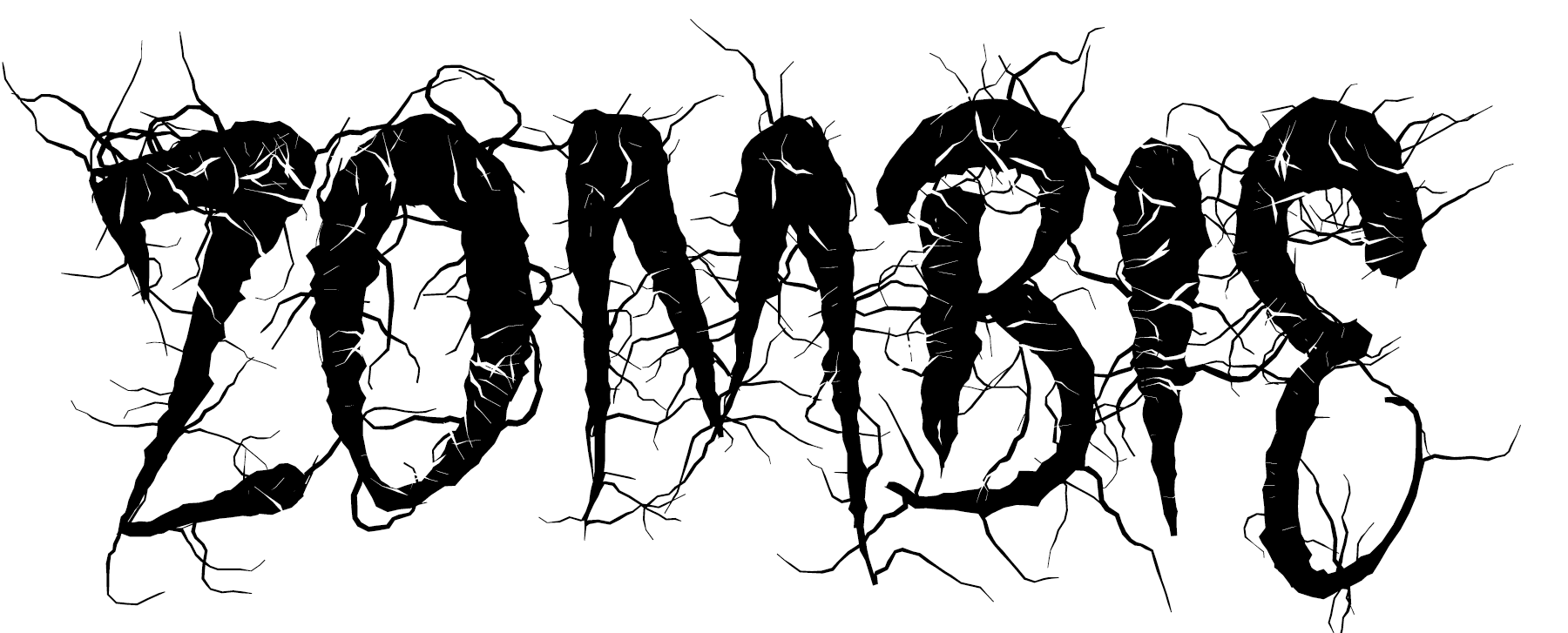
Although Hate is a single-weight design, it is far from just a simple font. The character set contains 510 glyphs, and each letter has three different variants available. Combined with the font’s OpenType features, this means that if you type the same letter three times (e.g., ‘RRR’), you’ll see three different instances. There’s more to Hate than the spooky-looking hairs or roots sprouting out from each glyph; looking at Hate’s design, the typographic sophistication quickly becomes apparent. The letters are top-heavy, and this plays out both in terms of weight and width. A strong amount of stroke contrast is in play in the characters, too. Hate is somewhat condensed, with narrow counters. Its drawing style is rather rough, with sharp, thin stroke endings. There’s some experimentation with the font’s internal heights; letterforms don’t share exact baselines, x-heights, cap-heights, or ascender and descender settings. Character proportion is a bit caricatural, too. However, there’s more internal order to the design than you’ll see at first glance. Most capital letters and numerals rise to a common height, for example.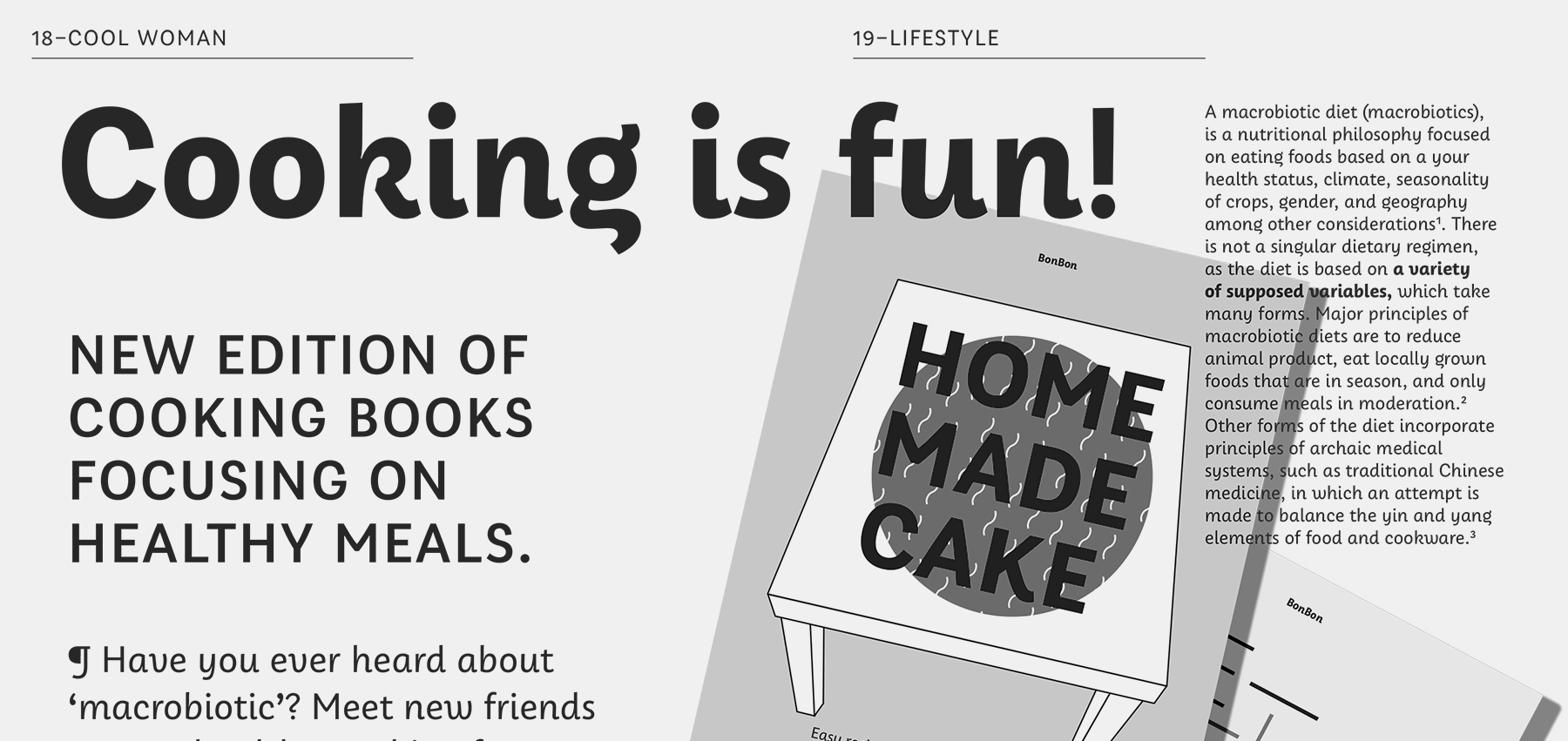
Papelli is a friendly family with six styles that range from Extralight to Extrabold. Many of Papelli’s uppercase letters have playful features. For instance, the bottom diagonals on ‘K’ and ‘R’ have cursive out-strokes, and the tail on the ‘Q’ is very energetic. Papelli’s other diagonals are curved, rather than straight; because of this, ‘A’, ‘V’, ‘W’, and ‘Y’ have a softened feeling. While the top half of Papelli’s ‘S’ has a curve that matches the ‘C’, its bottom counter is more open. Even more so than with the uppercase, Papelli’s lowercase letters are inspired by cursive writing: the ‘a’ is single-storey, and the ‘v’ and ‘w’ have in-strokes on their left-hand sides. Rounded letters, like the ‘o’, have diagonal stress. The x-height is high, and the lowercase’s ascenders are slightly higher than the cap height. Numerals fall slightly below the height of the uppercase letters. Many strokes end in mild diagonal shears, rather than in pure horizontal cuts, and verticals in Papelli’s lowercase have visible out-strokes. The lowercase ‘g’ has a Danish-style truncated-bowl for a descender. A more conventional single-storey ‘g’ is also available in a stylistic set. Special attention has been paid to Papelli’s non-alphabetic characters, too, like the beautifully-solved ampersand and paragraph symbols.
Hate & Papelli
This October we are pleased to release two very different designs: One is for Halloween or horror movie posters, another is for everyday design applications.